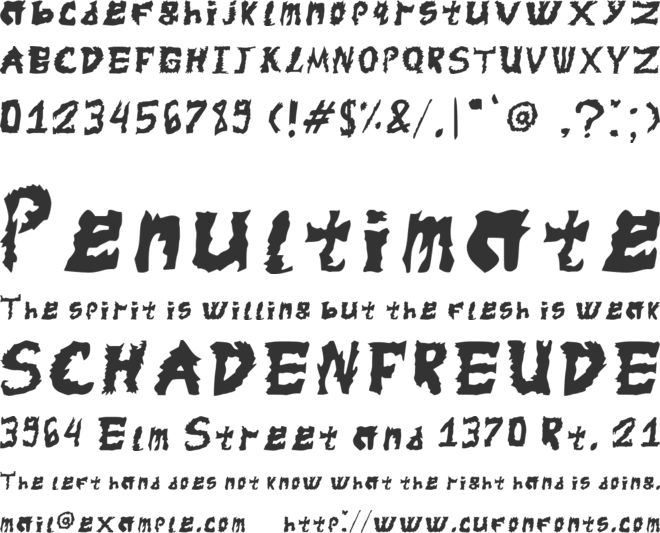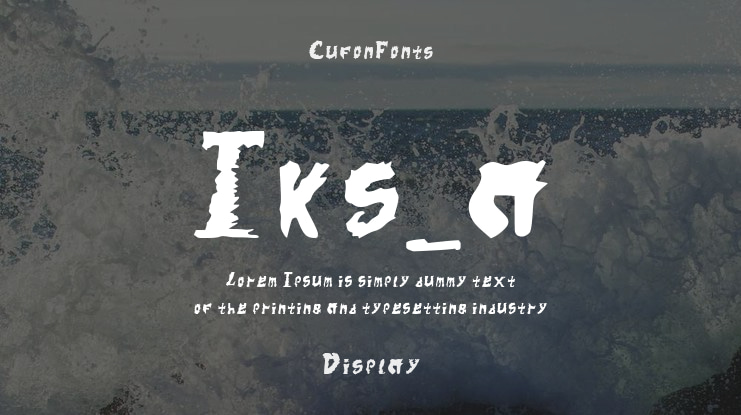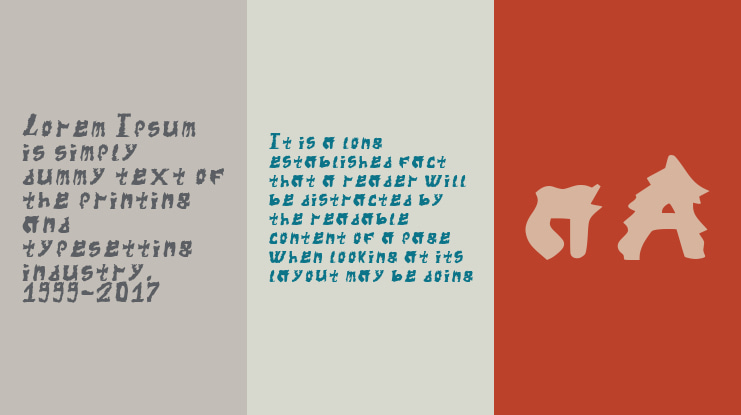
Iks_a Font
"Iks_a" is a font created by Matt Mars (a.k.a. MARSUG, a.k.a. WESHER), first used in "ICOMBO GAME" (2023) and in the music album WESHER – "ICOMBO".